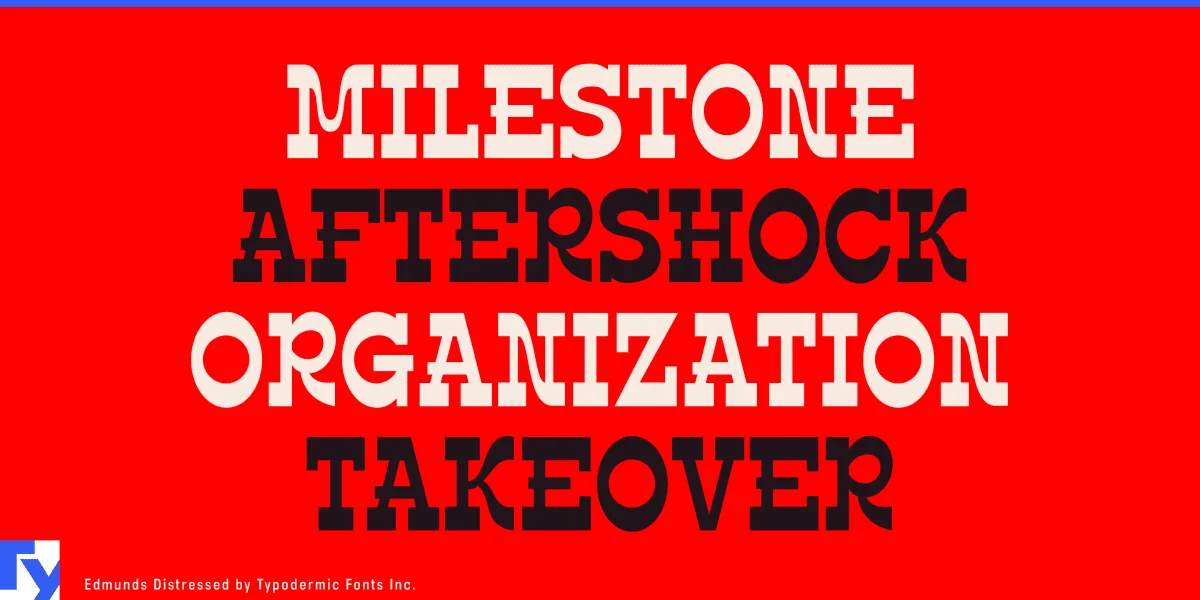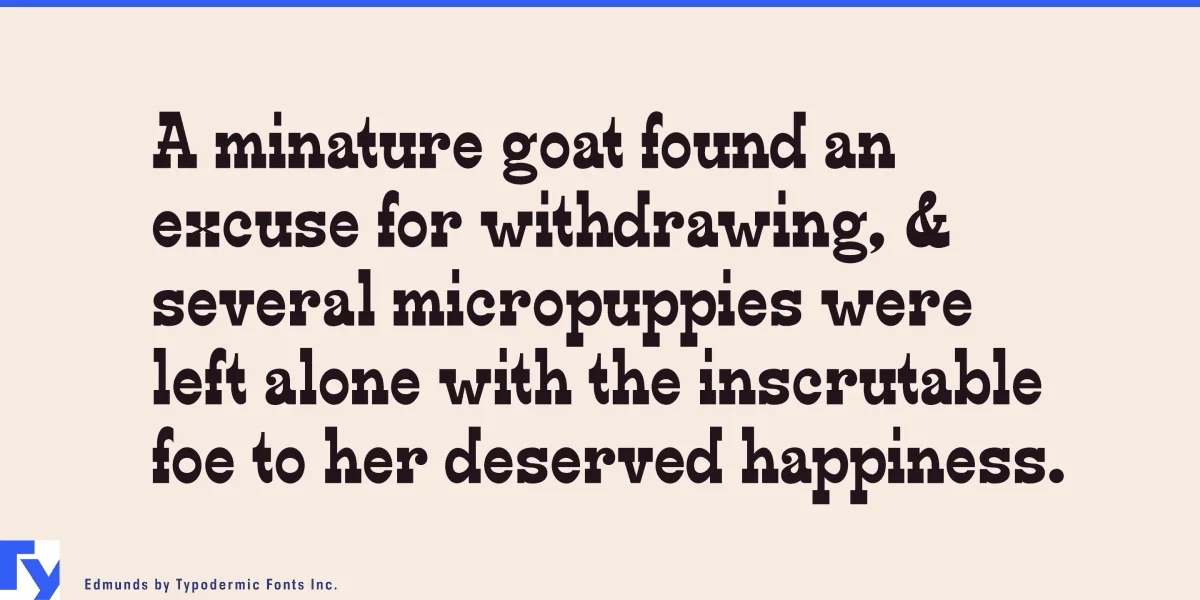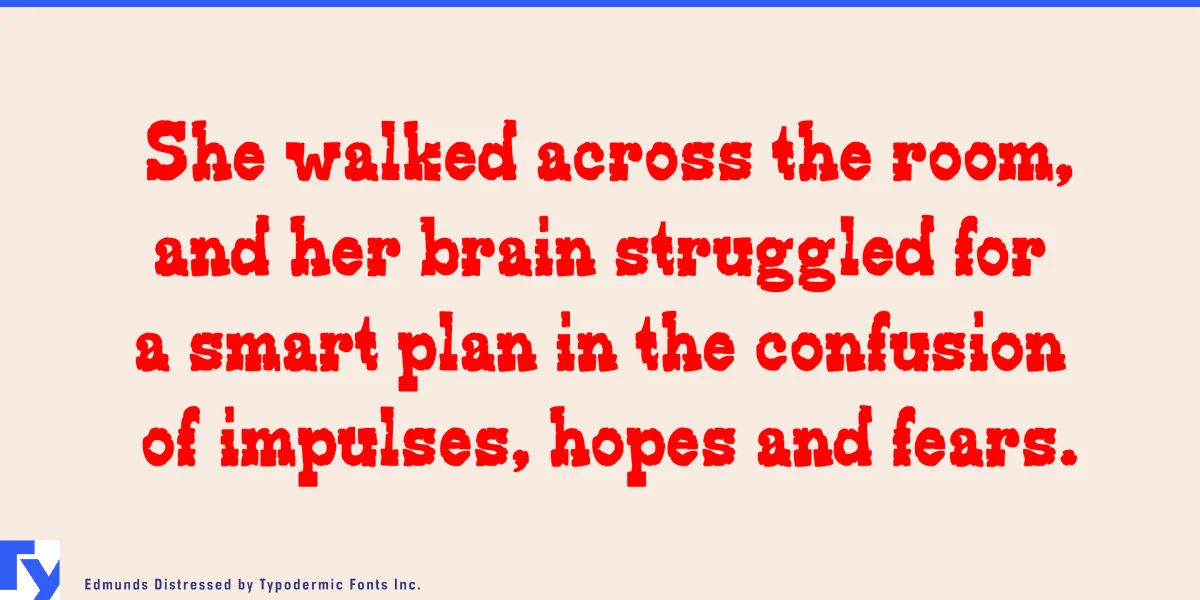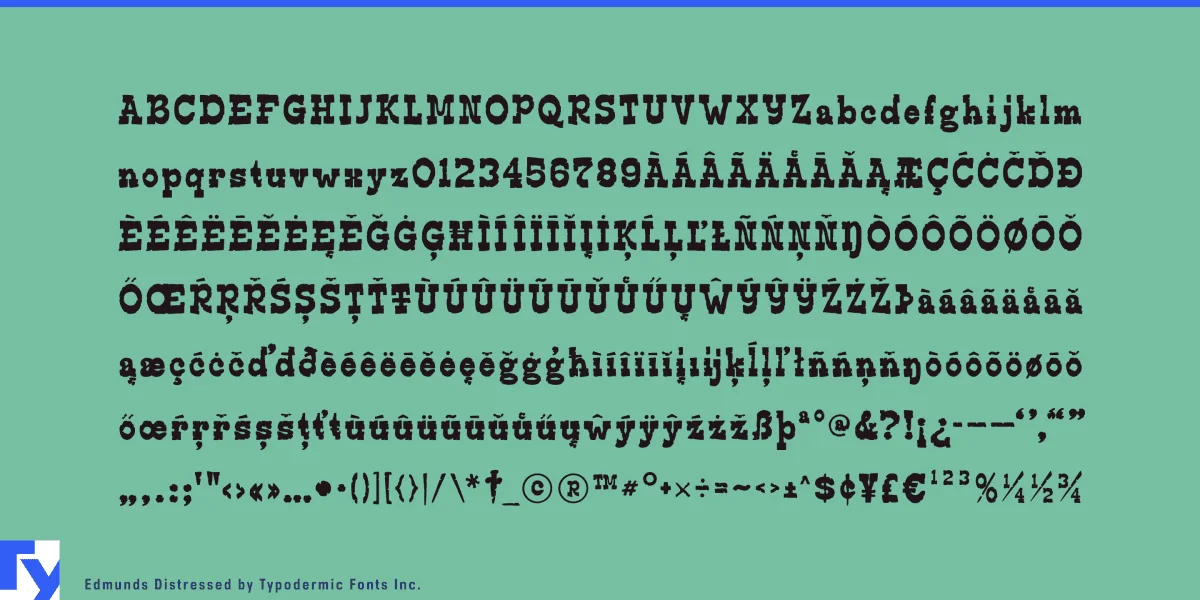
Edmunds is a cowboy typeface with ridiculous curves and clunky slab serifs. Its cheesy cowboy style will express your message in a playful, easygoing, country-time tone. Edmunds is offered in two variations: regular and distressed. Most Latin-based European writing systems are supported, including the following languages. Afaan Oromo, Afar, Afrikaans, Albanian, Alsatian, Aromanian, Aymara, Bashkir (Latin), Basque, Belarusian (Latin), Bemba, Bikol, Bosnian, Breton, Cape Verdean, Creole, Catalan, Cebuano, Chamorro, Chavacano, Chichewa, Crimean Tatar (Latin), Croatian, Czech, Danish, Dawan, Dholuo, Dutch, English, Estonian, Faroese, Fijian, Filipino, Finnish, French, Frisian, Friulian, Gagauz (Latin), Galician, Ganda, Genoese, German, Greenlandic, Guadeloupean Creole, Haitian Creole, Hawaiian, Hiligaynon, Hungarian, Icelandic, Ilocano, Indonesian, Irish, Italian, Jamaican, Kaqchikel, Karakalpak (Latin), Kashubian, Kikongo, Kinyarwanda, Kirundi, Kurdish (Latin), Latvian, Lithuanian, Lombard, Low Saxon, Luxembourgish, Maasai, Makhuwa, Malay, Maltese, Māori, Moldovan, Montenegrin, Ndebele, Neapolitan, Norwegian, Novial, Occitan, Ossetian (Latin), Papiamento, Piedmontese, Polish, Portuguese, Quechua, Rarotongan, Romanian, Romansh, Sami, Sango, Saramaccan, Sardinian, Scottish Gaelic, Serbian (Latin), Shona, Sicilian, Silesian, Slovak, Slovenian, Somali, Sorbian, Sotho, Spanish, Swahili, Swazi, Swedish, Tagalog, Tahitian, Tetum, Tongan, Tshiluba, Tsonga, Tswana, Tumbuka, Turkish, Turkmen (Latin), Tuvaluan, Uzbek (Latin), Venetian, Vepsian, Võro, Walloon, Waray-Waray, Wayuu, Welsh, Wolof, Xhosa, Yapese, Zapotec Zulu and Zuni.